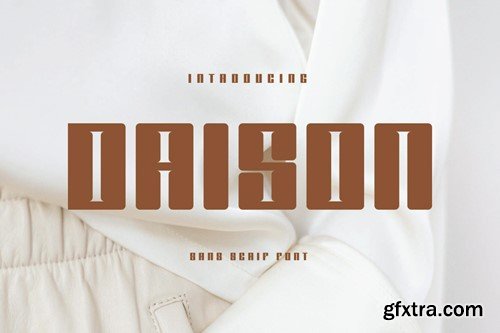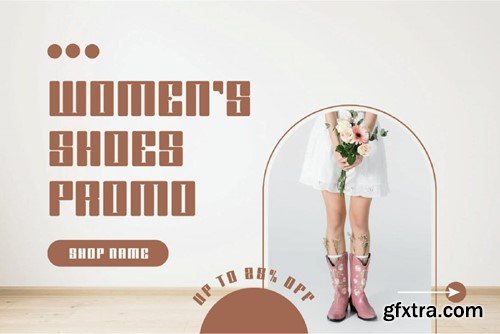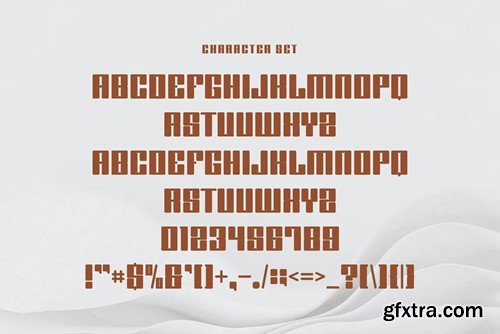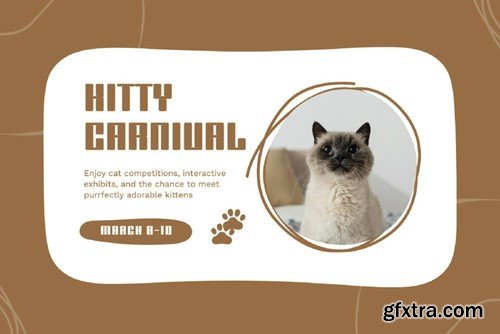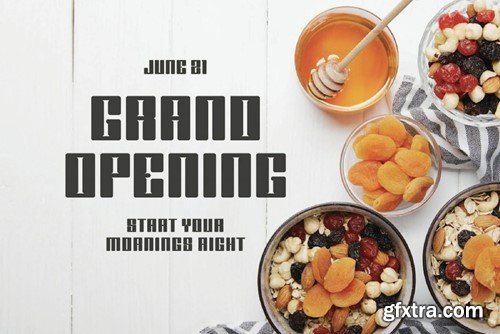
Daison - Sans Serif Font 85DB5UC
Daison - Sans Serif Font
Daison Sans Font Typeface inspired by the famous minimalist logo perfect for the purposes of designing templates, brochures, videos, advertising branding, logos, invitation, layout design, elegant crafting, beauty design and other. What's Included : Accessible in the Adobe Illustrator, Adobe Photoshop, Adobe InDesign, even work on Microsoft Word. PUA Encoded Characters Thank You